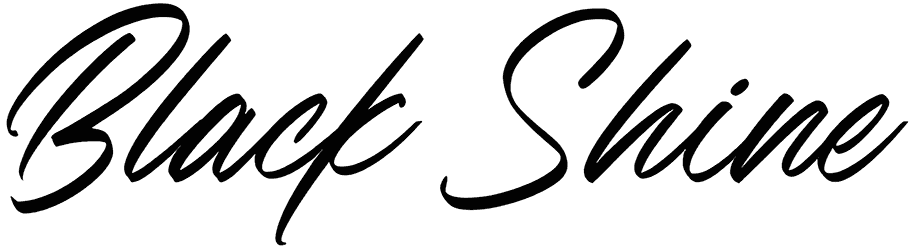
Black Shine Font
See what a great combination awaits you when you let Black Shine bring both elegance and a personal touch to your lettering. From Black Friday posters to business cards for luxury brands of accessories and high-end services like fancy catering, there’s a wide range of projects this handwritten font will be great for.
So if you wish your first interaction with your audience to go down smoothly, this cursive font will show you how to keep things in good taste.